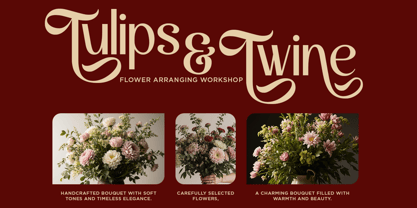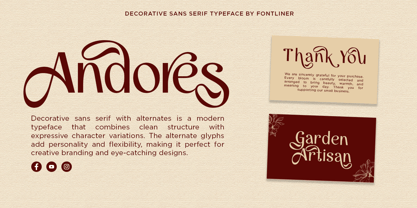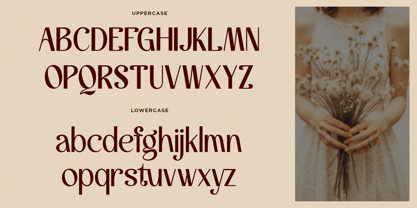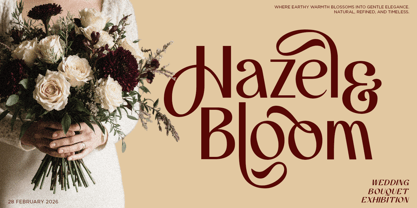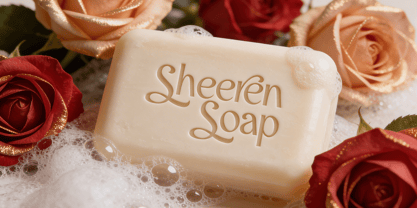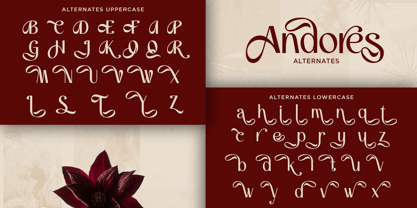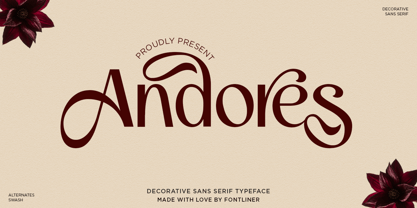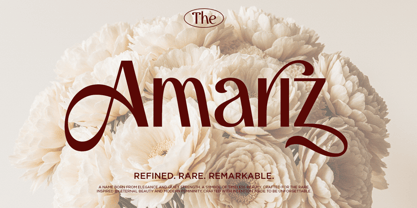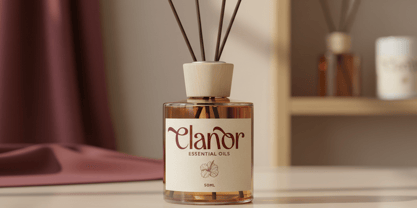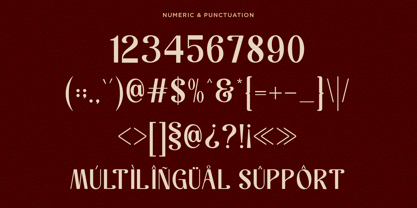
Andores
The Andores Font Family was designed by Ghina Luthfiarieska and published by Font Liner. Andores contains 2 styles and family package options. More about this family
Andores is a decorative sans serif typeface designed to convey elegance, charm, and soft visual luxury through its graceful curves and stylish swashes. The flowing letterforms and refined proportions create a romantic yet modern aesthetic, making every word feel warm, inviting, and visually captivating. With its decorative details and smooth rhythm, Andores infuses beauty and personality into every character. This typeface is ideal for feminine branding, beauty products, fashion labels, wedding designs, lifestyle visuals, social media graphics, boutique logos, cosmetic packaging, and elegant editorial layouts. Andores strikes a delicate balance between modern simplicity and ornamental sophistication, allowing designers to craft eye-catching headlines, logos, and brand identities that resonate with emotional appeal and a premium feel. From floral branding and skincare packaging to romantic invitations, product labels, and Instagram content, Andores empowers designers to create visuals that exude softness, luxury, and memorability. This typeface elevates ordinary typography into graceful storytelling, ensuring your designs stand out with beauty, charm, and refined style. Thank You, Have a Good Day! FontLiner